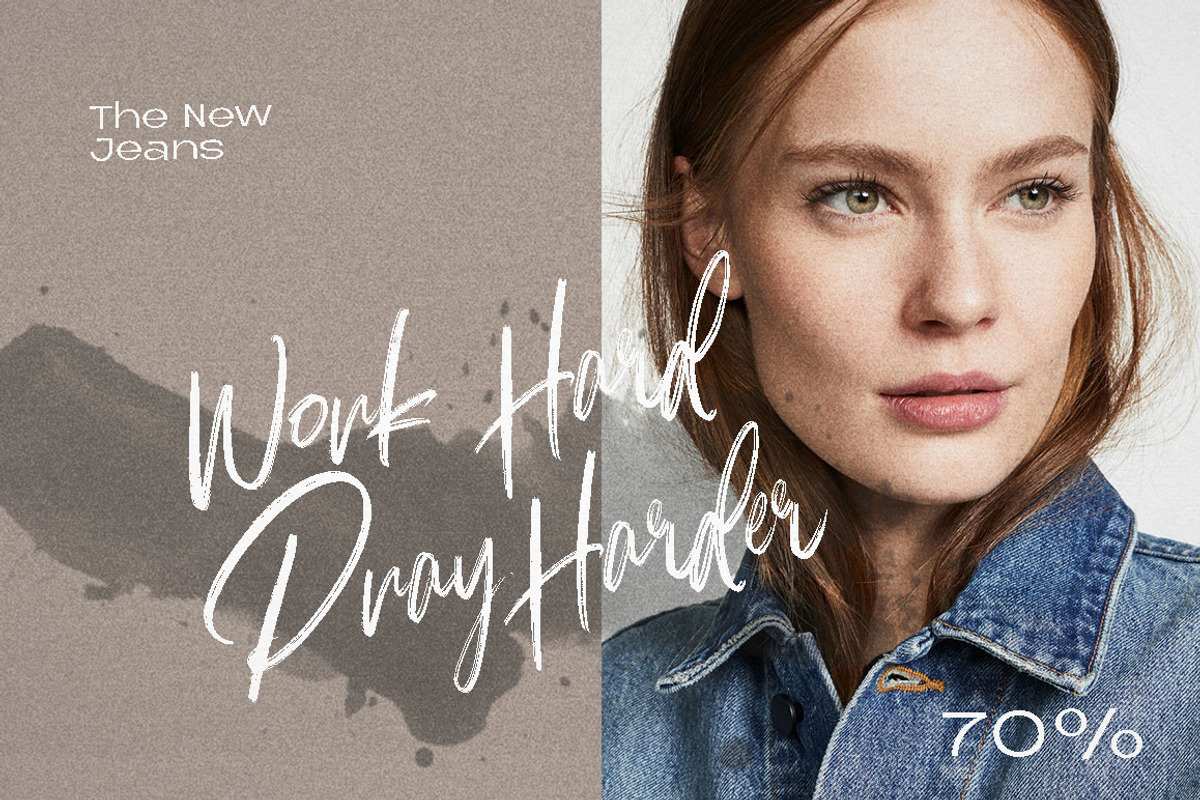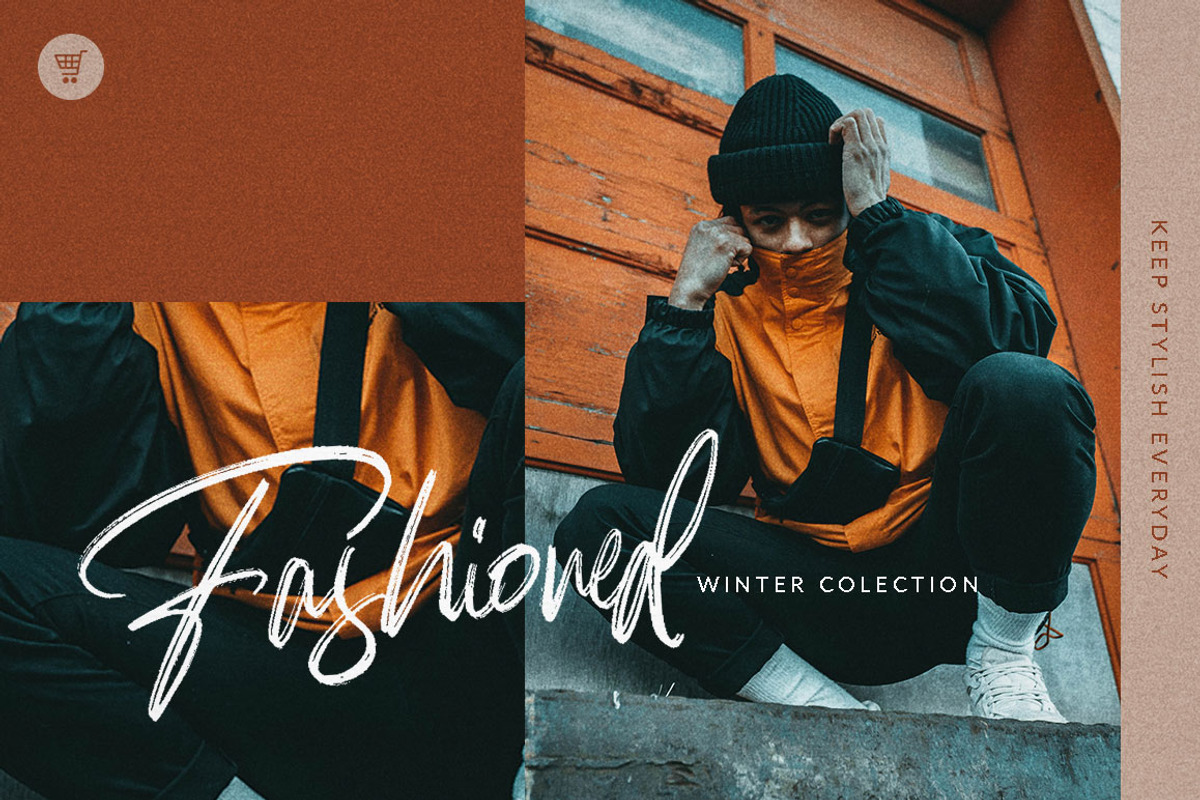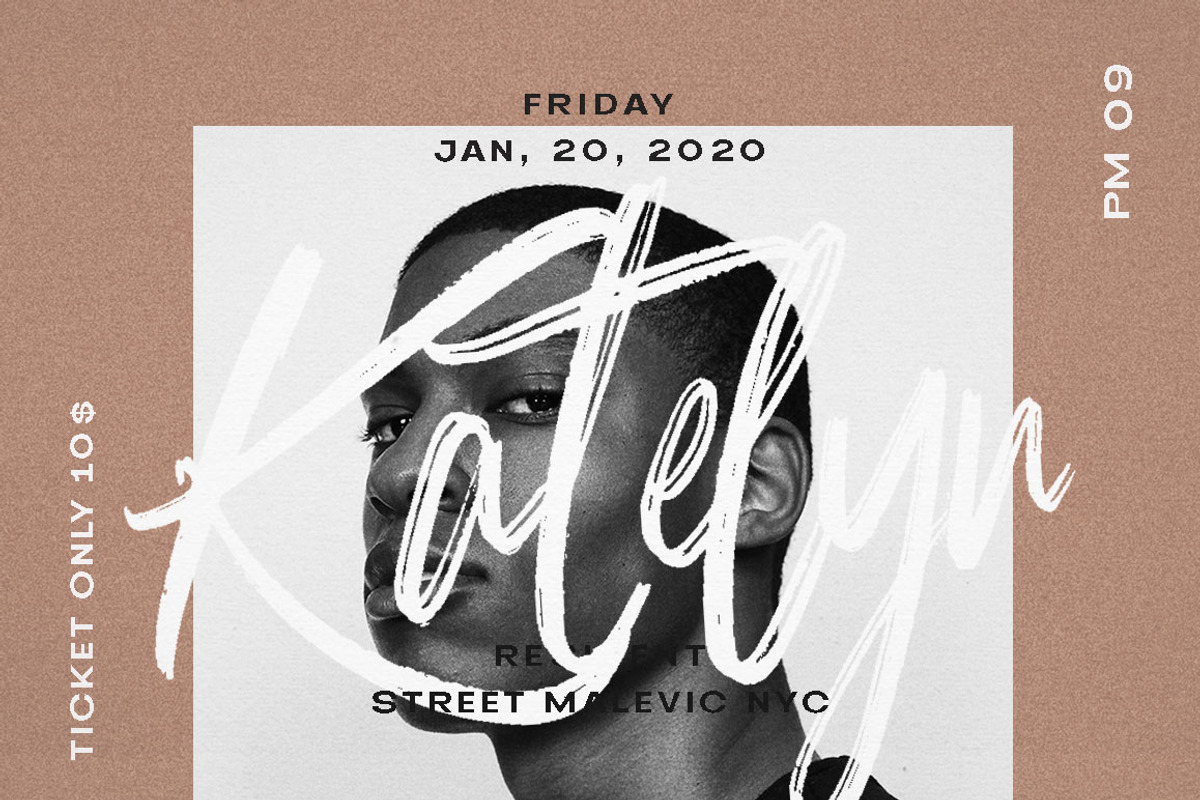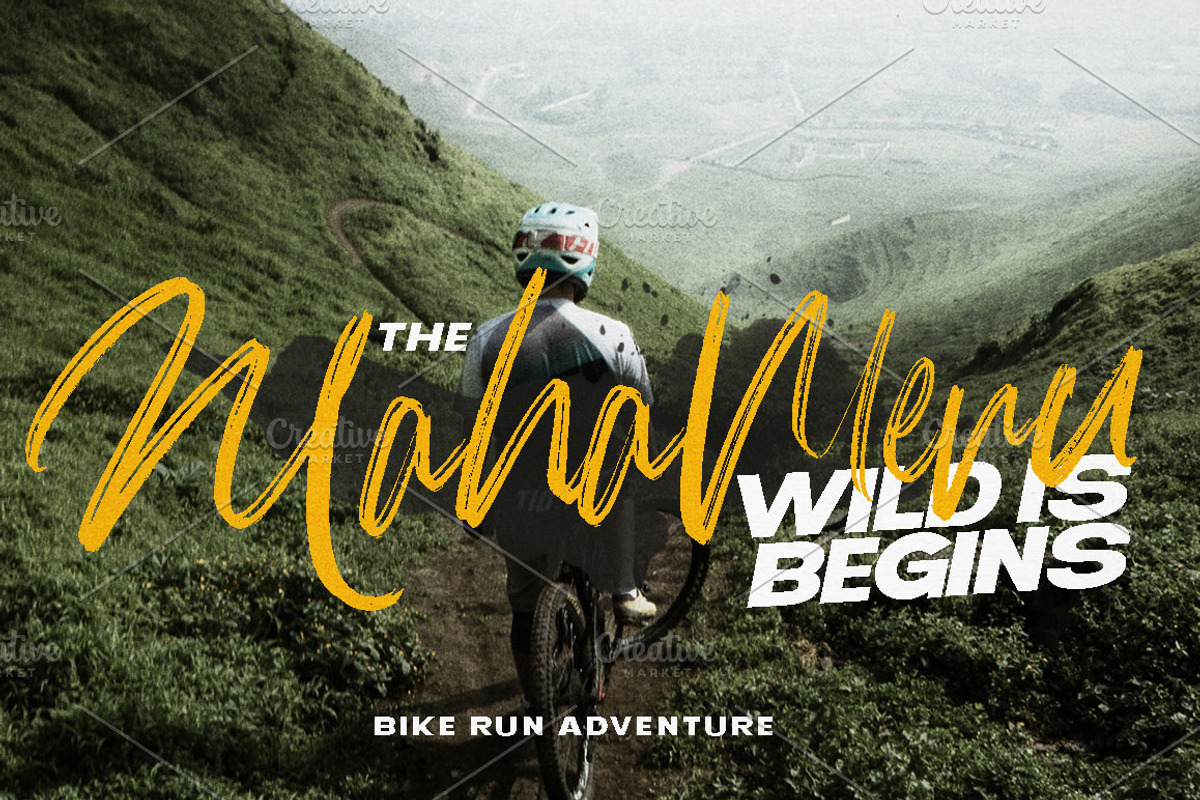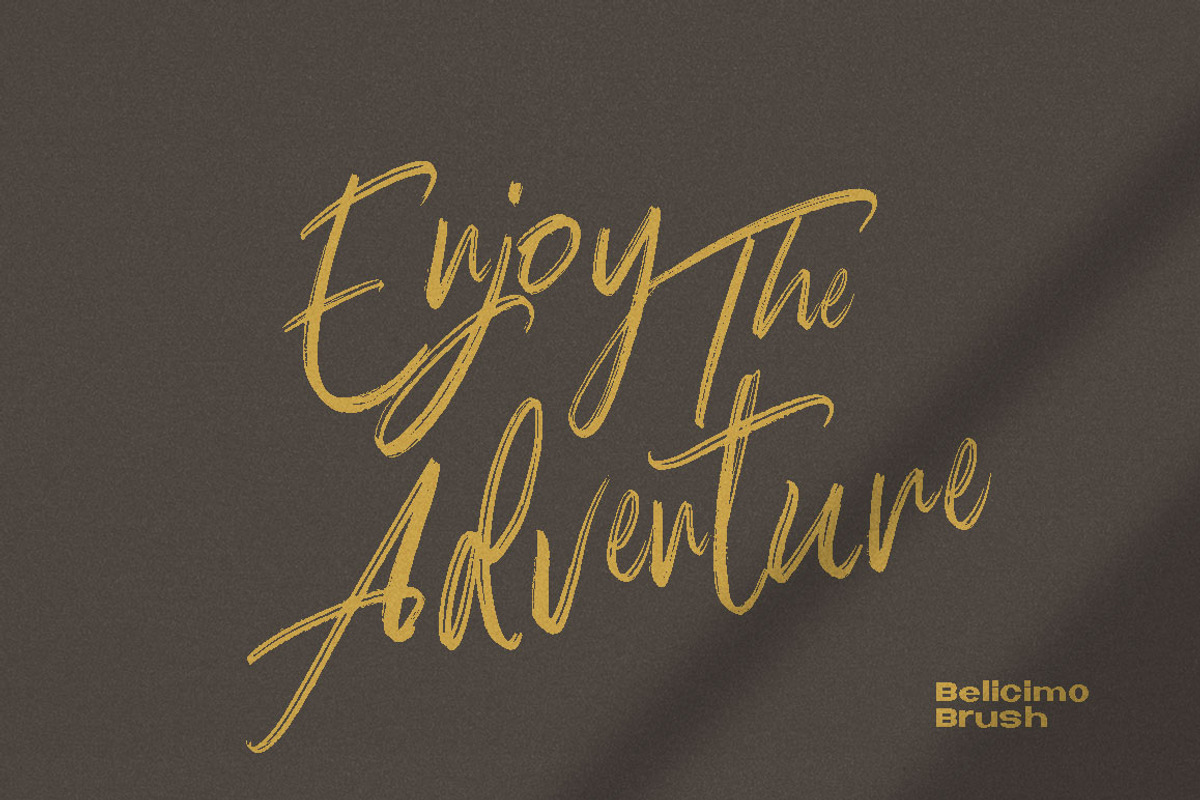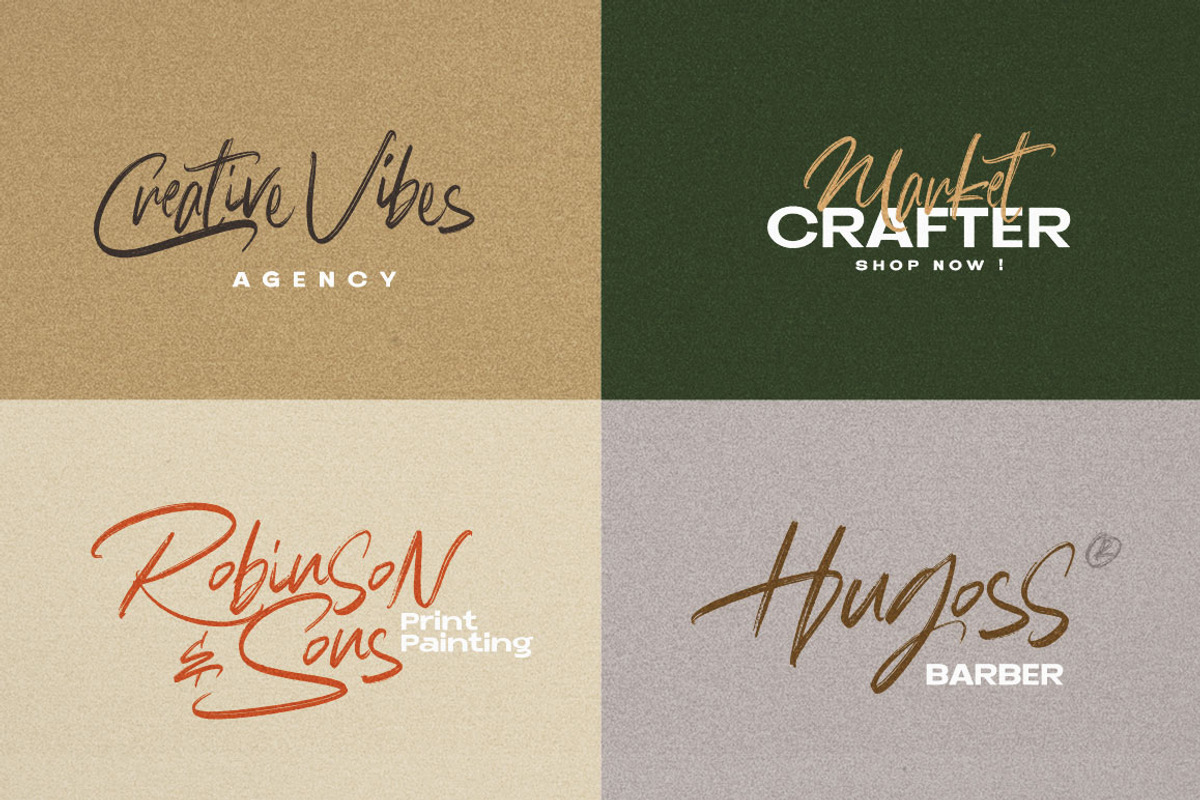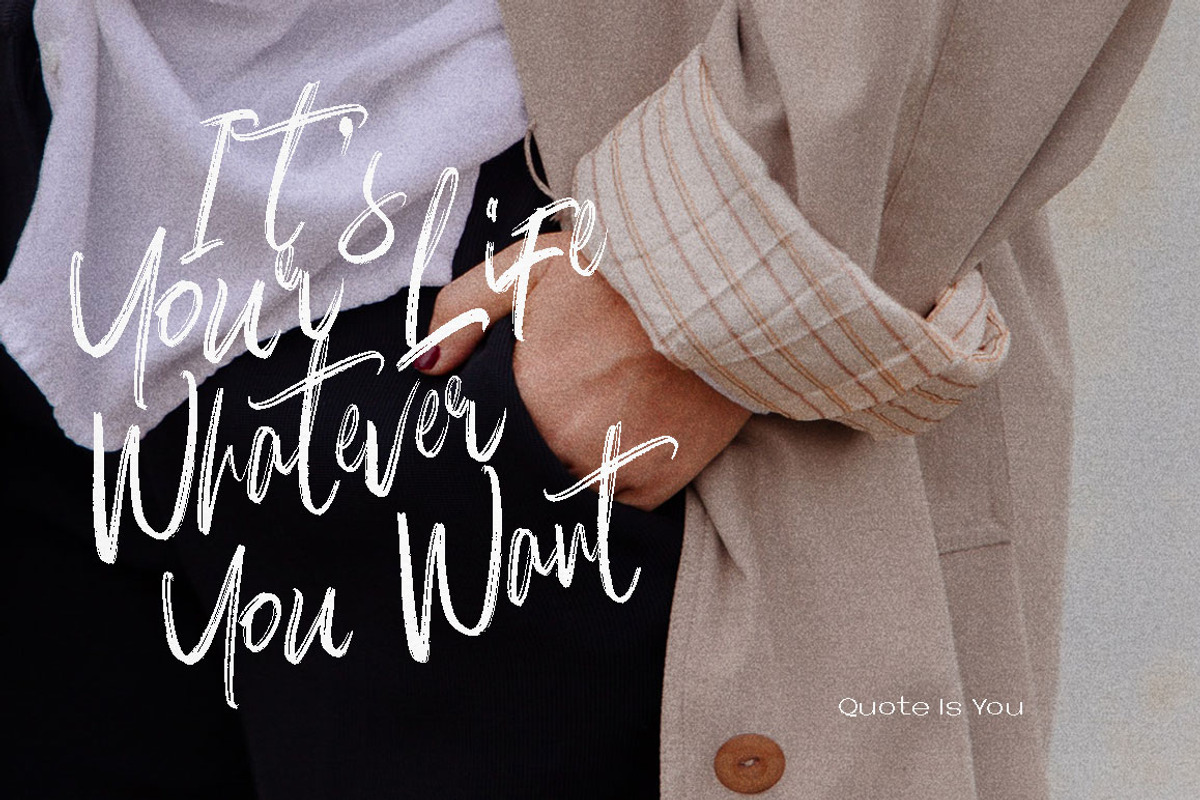
Balecimo - Ordinary Brush Font
Balecimo Brush is Stylist Brush font with a real hand-painted wet brush look. Ideal for signature, logos, handwritten quotes, product packaging, header, poster, merchandise, social media & greeting cards.